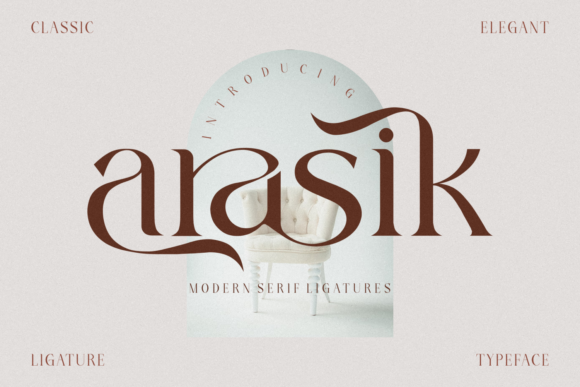
Celebrate the beauty of typography with Arasik, a stunning serif font crafted to captivate your designs. Its slender strokes and elegant curves exude a timeless charm that adds a touch of sophistication to any project.
Designed with a keen eye for detail, Arasik's subtle contrast between thick and thin lines creates a visually arresting effect. This harmonious interplay of light and shadow lends a sense of depth and dimension to your creations, making them leap off the page or screen.
Arasik's versatility knows no bounds, making it the perfect choice for a wide range of design projects. From sophisticated magazine layouts to eye-catching logos, from elegant invitations to polished business documents, Arasik effortlessly adapts to your vision, adding a touch of class and sophistication to every piece.
Unleash your creativity and let Arasik transform your words into works of art. Whether you're a seasoned designer or just starting your journey, Arasik's user-friendly charm makes it a joy to work with. Experience the ease of creating captivating designs that leave a lasting impression.
With Arasik, you're not just choosing a font; you're embarking on a journey of self-expression and visual delight. Let the beauty of Arasik elevate your designs to new heights and captivate your audience with every stroke.